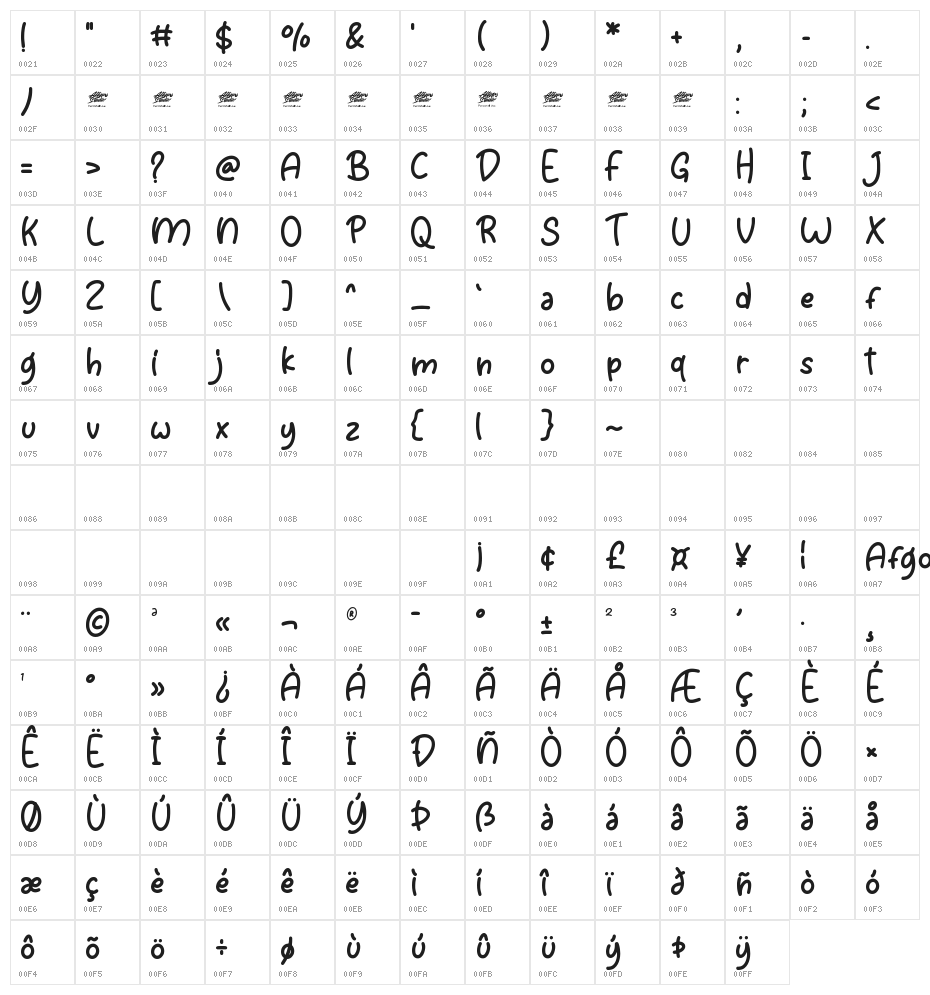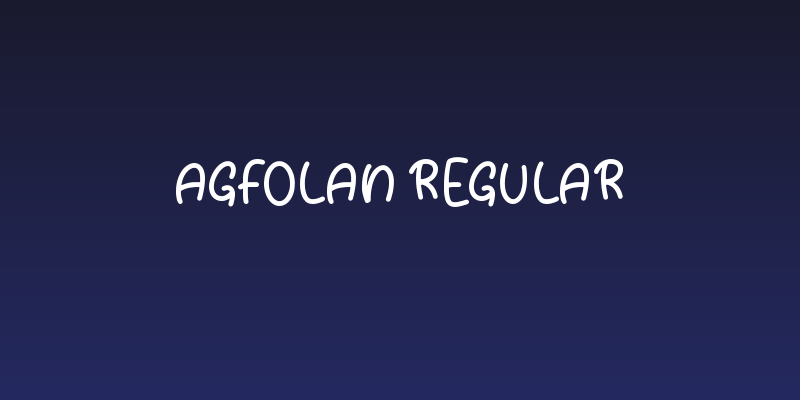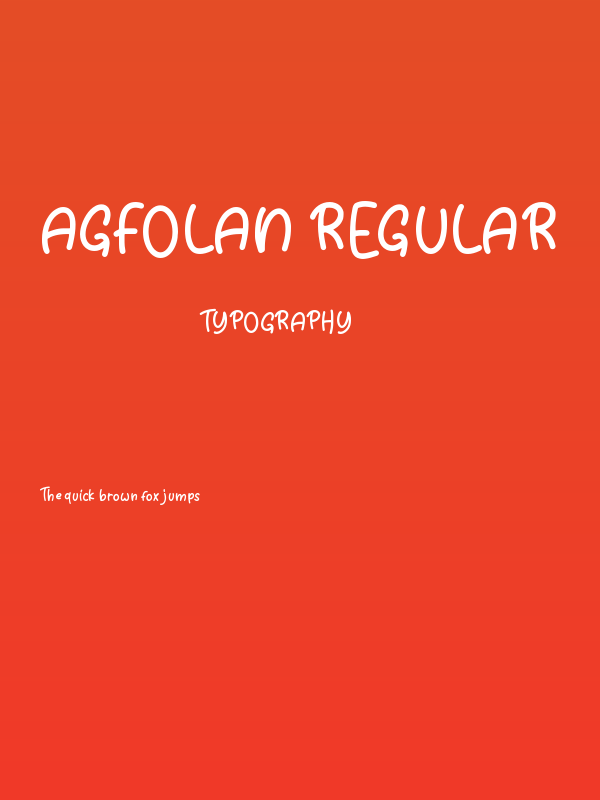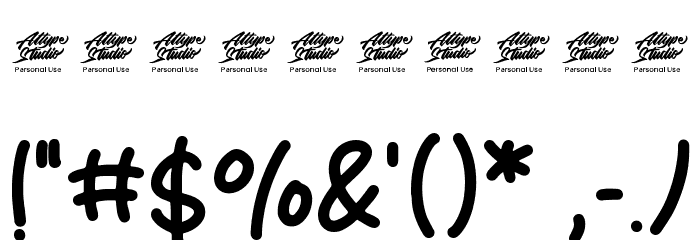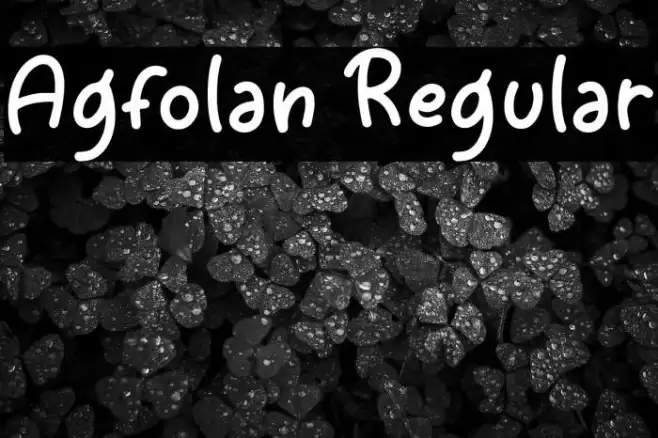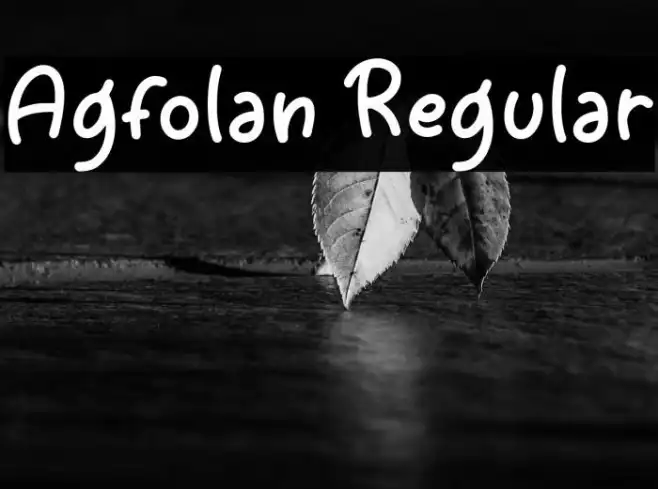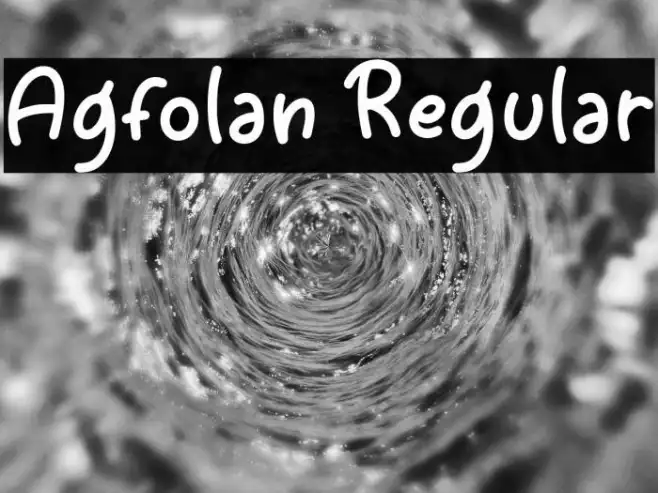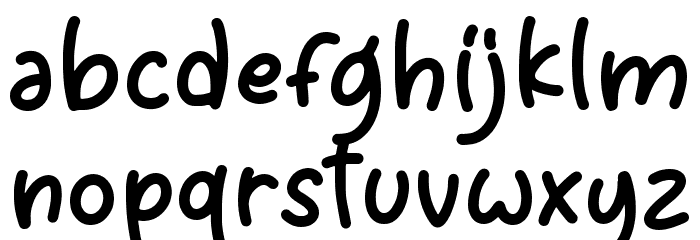
Agfolan Regular Font
Agfolan Regular Description
This font features a playful and casual handwritten style, characterized by its smooth, rounded strokes and slightly irregular shapes. The letters have a friendly and approachable appearance, making it ideal for informal and creative projects. The uppercase and lowercase letters maintain a consistent style, with a slight slant that adds to the dynamic feel of the font. The numerals and special characters are designed to match the overall aesthetic, ensuring a cohesive look across all text elements. The font's design is versatile, suitable for a variety of uses where a personal touch is desired.
| Proposed Projects | Ideal for greeting cards, invitations, children's books, and creative branding projects. |